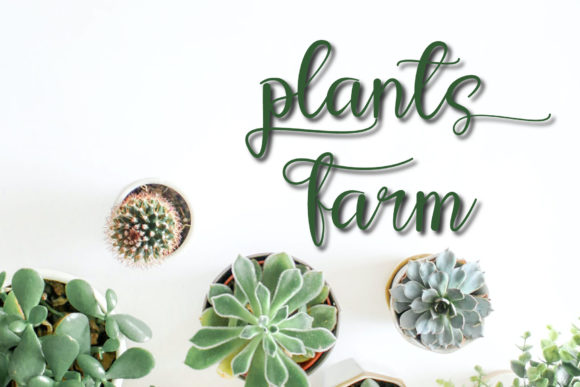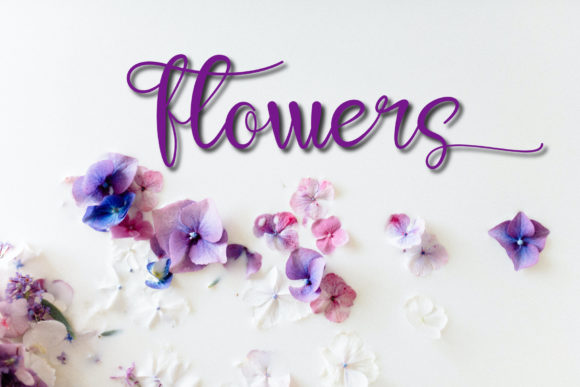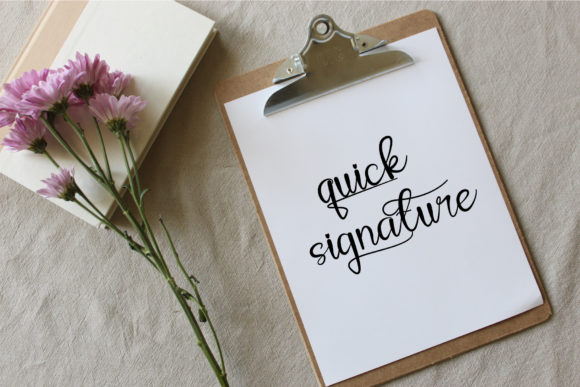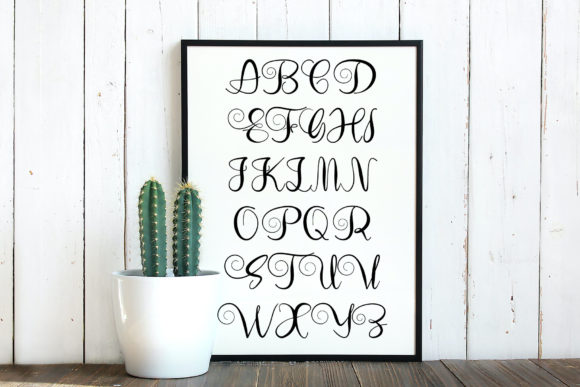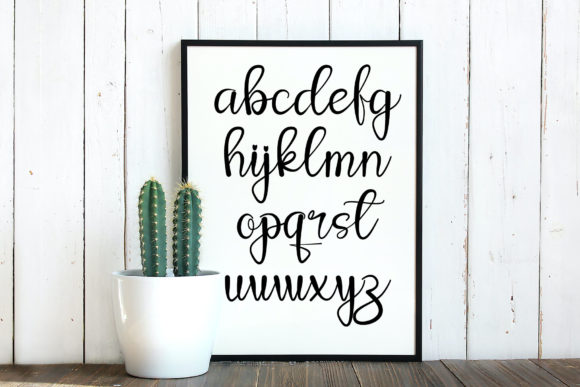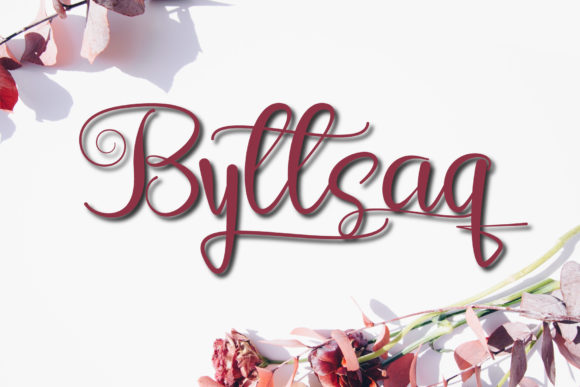
Introducing Byttsaq Font: Elevate Your Designs with Luxury and Elegance
Are you a designer or crafter looking for a unique and stunning font to add a touch of luxury to your projects? Look no further than Byttsaq Font, a beautiful light handwritten font that is sure to make your designs stand out. With its distinctive feel and impressive impact, Byttsaq Font is the perfect choice for anyone seeking to add a touch of sophistication and elegance to their work.
What Makes Byttsaq Font So Special?
Byttsaq Font is a truly exceptional font that boasts a range of features that set it apart from other fonts. Here are just a few of the things that make Byttsaq Font so special:
- Unique and Handwritten: Byttsaq Font is a light handwritten font that has a unique feel and a stunning impact. Its handwritten style gives it a personal and organic feel that is perfect for adding a touch of warmth and personality to your designs.
- Luxury and Elegance: Byttsaq Font is designed to add a touch of luxury and elegance to any design project. Its sophisticated style and impressive impact make it perfect for use in high-end designs, such as branding, packaging, and advertising.
- PUA Encoded: Byttsaq Font is PUA (Private Use Area) encoded, which means that you can access all of the amazing glyphs and ligatures with ease. This makes it easy to use the font in your designs and to create stunning text effects.
How to Use Byttsaq Font in Your Designs
Using Byttsaq Font in your designs is easy and straightforward. Here are a few tips to get you started:
- Pair it with Other Fonts: Byttsaq Font pairs well with other fonts, such as sans-serif fonts and script fonts. Experiment with different font combinations to create unique and interesting text effects.
- Use it for Headings and Titles: Byttsaq Font is perfect for use in headings and titles, where its elegant and sophisticated style can really shine.
- Add Ligatures and Glyphs: Take advantage of Byttsaq Font’s PUA encoding to add ligatures and glyphs to your text. This can add an extra layer of interest and sophistication to your designs.
Benefits of Using Byttsaq Font
There are many benefits to using Byttsaq Font in your designs. Here are just a few:
- Adds Luxury and Elegance: Byttsaq Font adds a touch of luxury and elegance to any design project, making it perfect for high-end designs.
- Unique and Memorable: Byttsaq Font is a unique and memorable font that can help your designs stand out from the crowd.
- Easy to Use: Byttsaq Font is easy to use and can be easily integrated into your designs.
Who Can Benefit from Using Byttsaq Font?
Byttsaq Font is perfect for a range of designers and crafters, including:
- Graphic Designers: Graphic designers can use Byttsaq Font to add a touch of luxury and elegance to their designs.
- Branding and Packaging Designers: Byttsaq Font is perfect for use in branding and packaging designs, where its sophisticated style can really shine.
- Stationery and Card Makers: Stationery and card makers can use Byttsaq Font to add a touch of elegance and sophistication to their designs.
In conclusion, Byttsaq Font is a beautiful light handwritten font that is perfect for adding a touch of luxury and elegance to any design project. With its unique feel, stunning impact, and PUA encoding, Byttsaq Font is a must-have font for any designer or crafter looking to elevate their designs. So why wait? Download Byttsaq Font today and start creating stunning designs that are sure to impress!